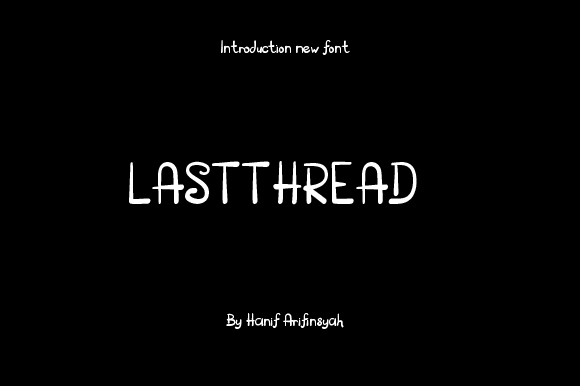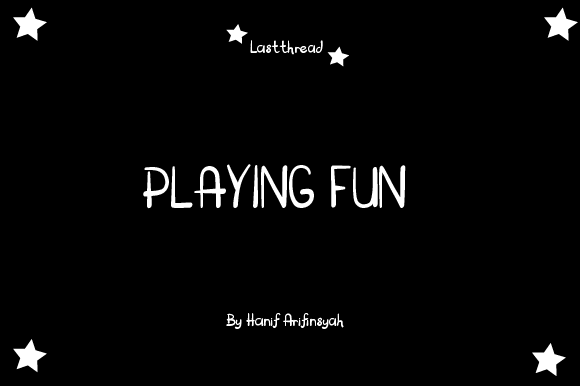
HomeScript FontsLastthread Font Script Fonts Lastthread Font FacebookXPinterestWhatsApp Lastthread Font Poster 2 About Lastthread Font Latthread is an elegant, full-featured script font with tons of alternate characters and OpenType features. DOWNLOAD ON CREATIVE FABRICAThis font is sold and delivered by Creative Fabrica. Font Canyon may earn a commission if you buy through this link. People also explored Bonjour Font Always Sanguine Font Lynn Carpender Font Shocktober Font Garvis Pro Manstromer Font Hansley Font Stay Take Font Bokeseni Bold Italic Font 421 0 TagsLastthread Font Previous articleRosewind FontNext articleAnisha Font LEAVE A REPLY Cancel reply Comment: Please enter your comment! Name:* Please enter your name here Email:* You have entered an incorrect email address! Please enter your email address here Website: Save my name, email, and website in this browser for the next time I comment. Personal Use Free Amellis Path Personal Use Free Read more about this font Crack Man Personal Use Free Read more about this font Hanberra Personal Use Free Read more about this font Gratisan Personal Use Free Read more about this font BLOG Transform Your Website: Elevate Your Typography with 7 Best Web Font Generators Are you ready to transform your website's typography from ordinary to extraordinary? Great! Today, we're diving into the world of web font generators, which... How to Install and Use Fonts on Windows, macOS, and Web Projects Best Fonts for YouTube Videos: Make Your Thumbnails Stand Out Exploring Font Trends